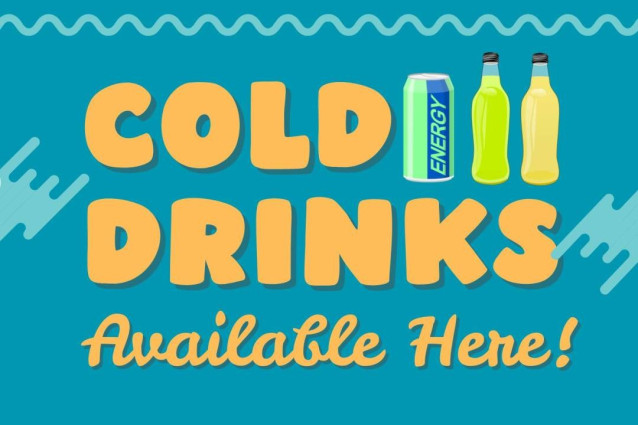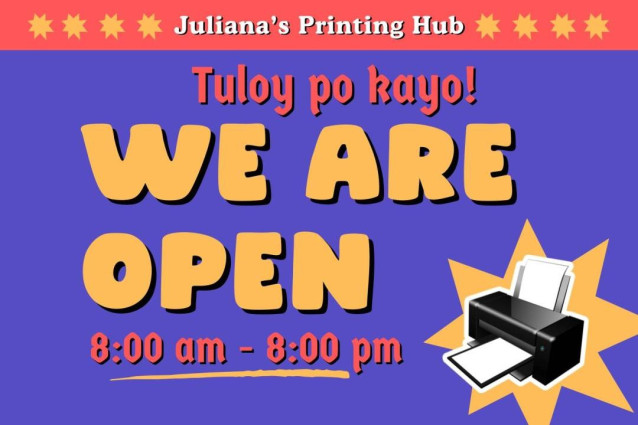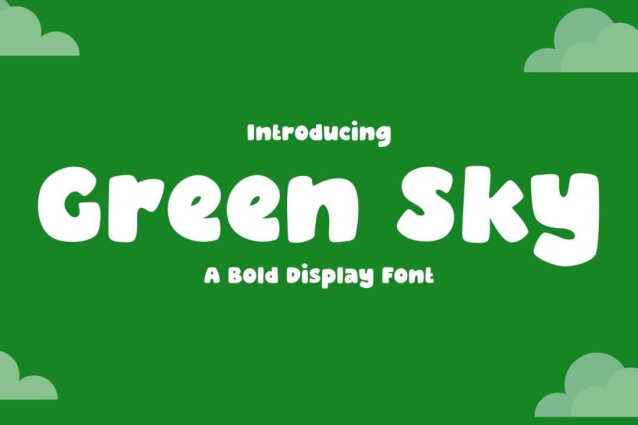
Green Sky Font
Green Sky Font is a chunky, comic, and cartoon display font. With its neat and joyful personality, this font will enhance any project you wish to create!